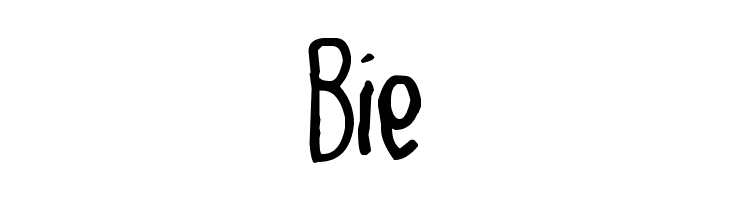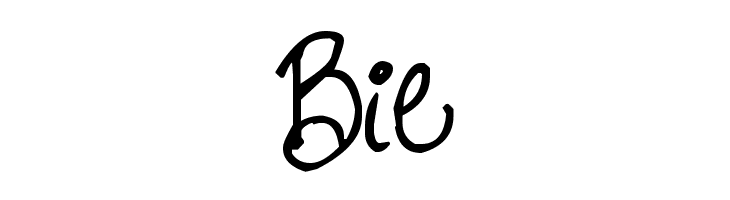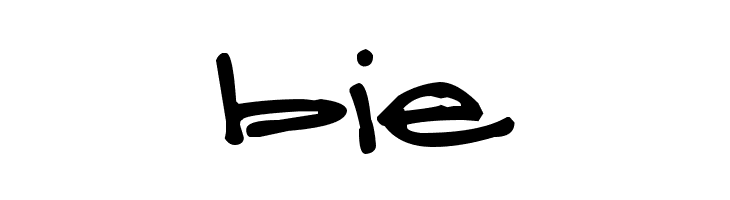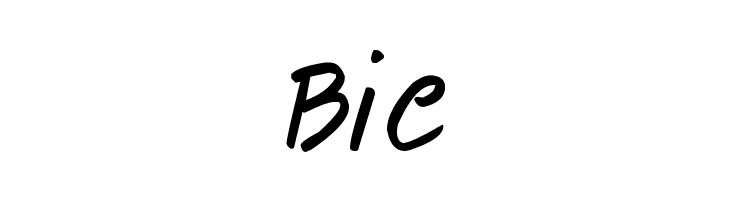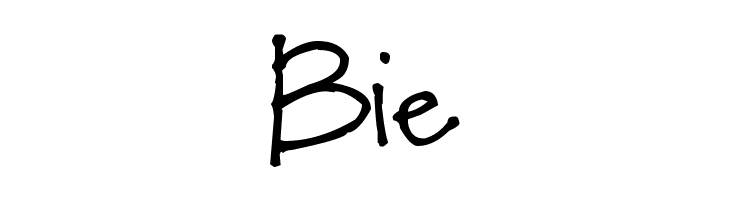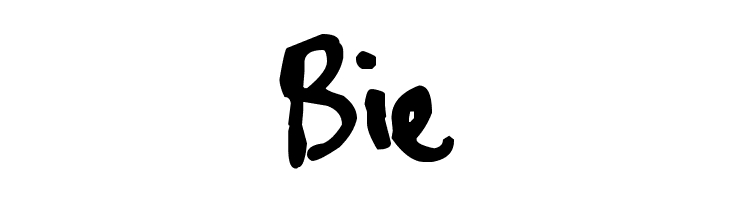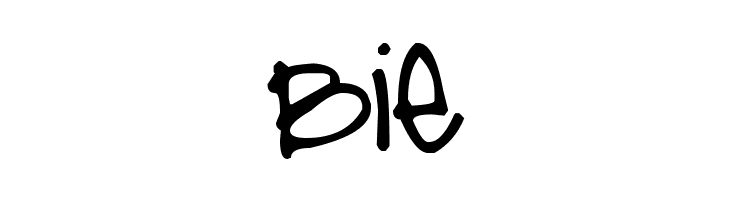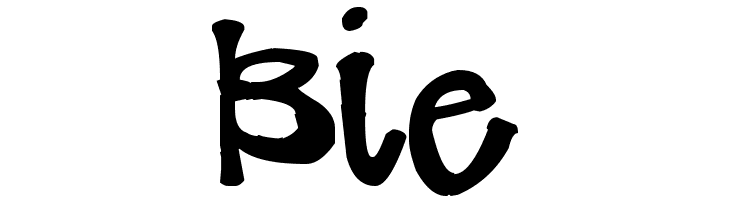
• Pea Kristy
A playful, casual handwritten font with uneven strokes and organic flow.
• Pea Lacy
A playful, casual handwritten font with irregular strokes and a whimsical style.
• Pea Lacy Chunky
A bold, playful handwritten font with chunky, uneven strokes.
• Pea Leigh Leigh
A playful, handwritten font with a whimsical and casual style.
• Pea Lindsey
A playful, handwritten font with smooth, flowing lines and a friendly appearance.
• Pea Lindsey Unicase
A playful, handwritten font with a mix of uppercase and lowercase letters.
• Pea Lis
A playful, casual handwritten font with a dynamic and lively feel.
• Pea Little-Ducky
A playful, handwritten font with a casual and friendly vibe.
• Pea Liz
A playful, handwritten font with a casual and dynamic style.
• Pea Lou Who
A playful, hand-drawn font with a whimsical and casual style.